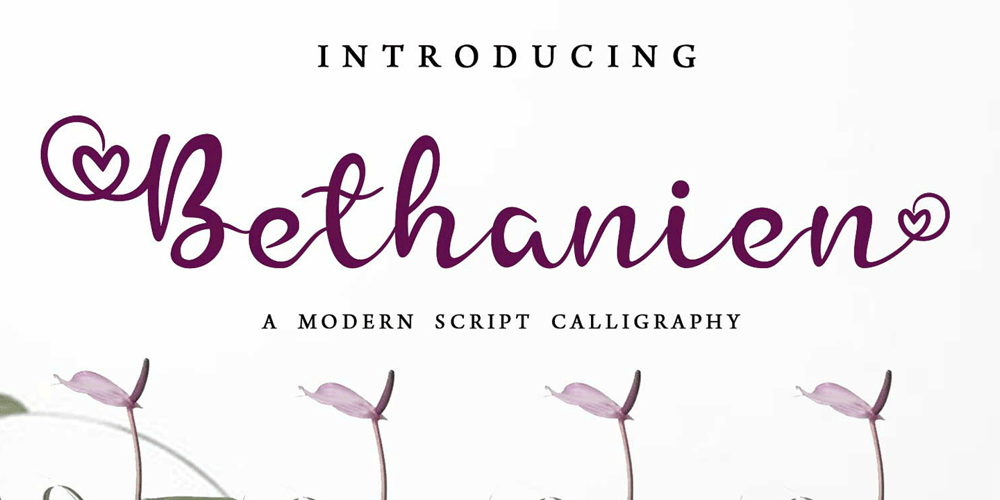
Bethanien Font Family was designed by Reza Mukhtazar and published by Rezastudio. Bethanien contains 1 styles and family package options. Bethanien is beautiful sweet calligraphy font. It is fresh, modern, and maintaining its elegance. This font is so perfect for many designs, from wedding invation, greeting card, social media quotes, branding, logo, and many more.Features:+Tons of Glyphs, including beautiful alternate glyphs.+Can be used in any software, like Adobe Photoshop, Illustrator, even Microsoft Word, PowerPoint and others.+Multilingual glyphs.